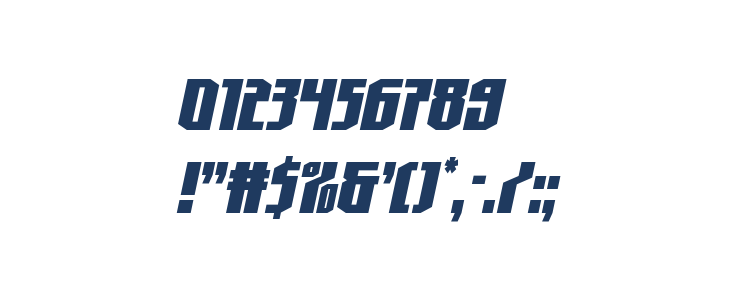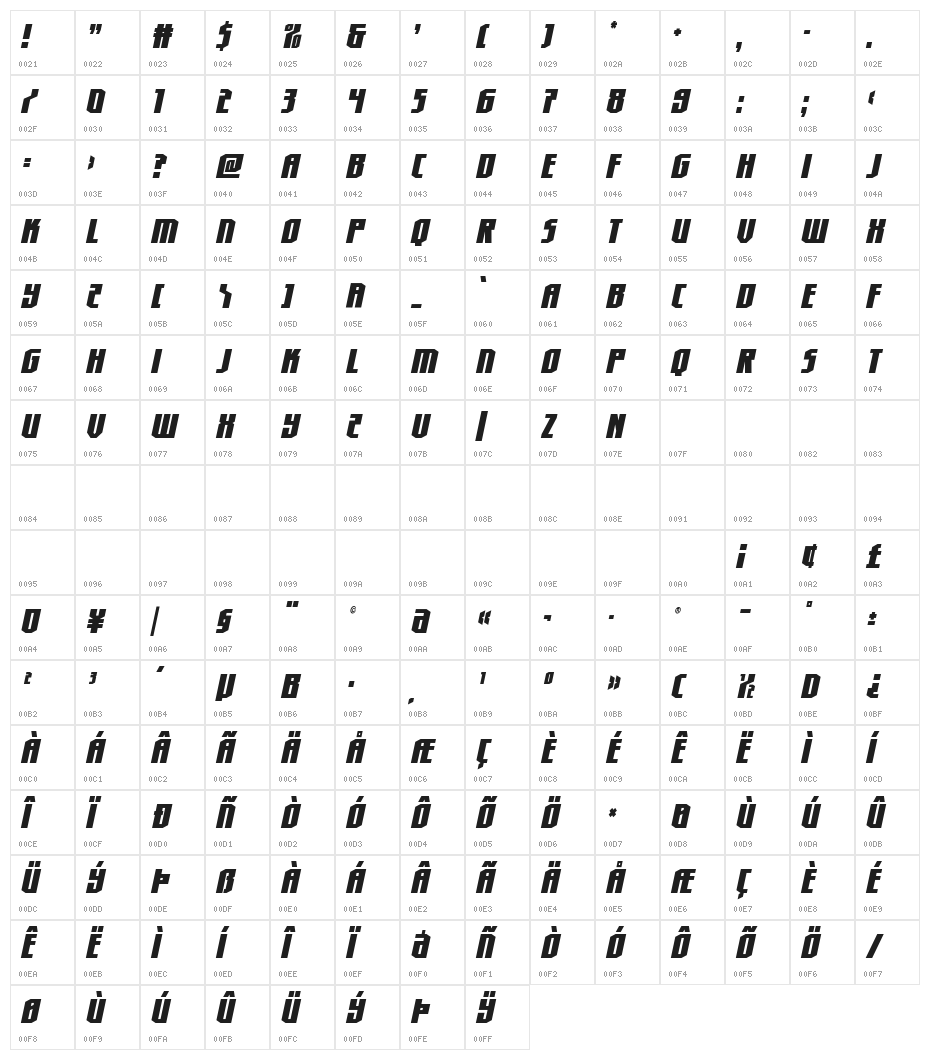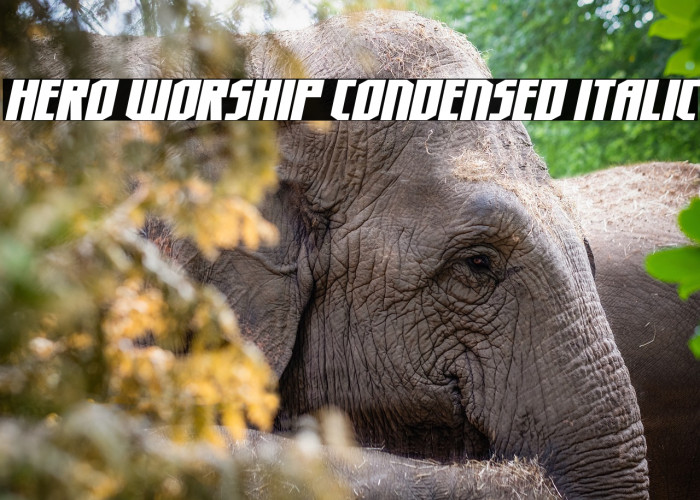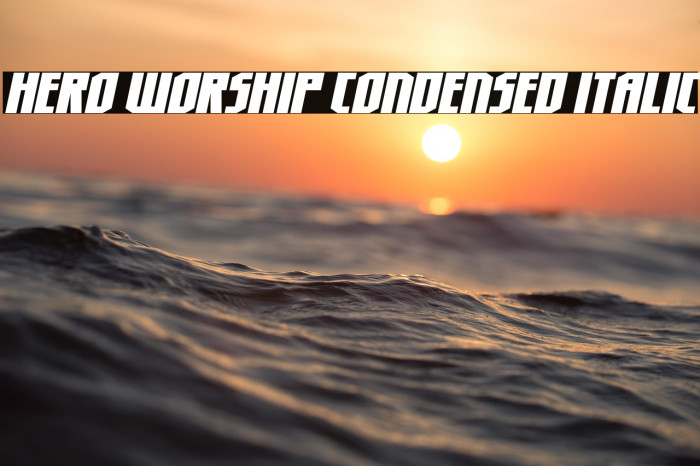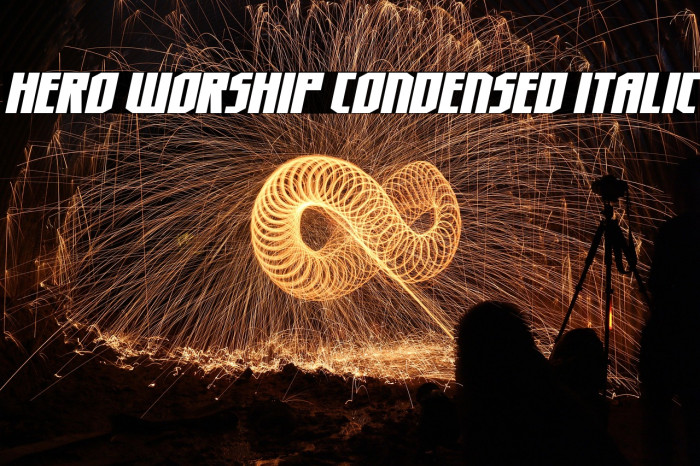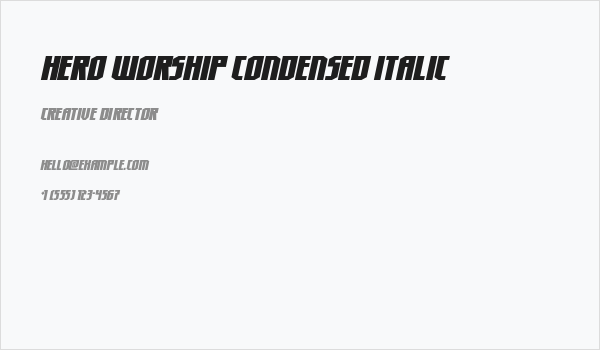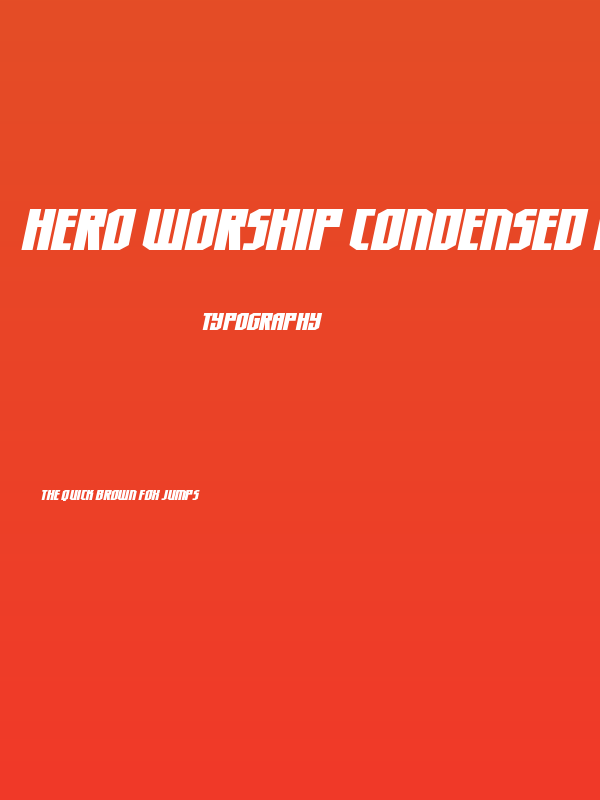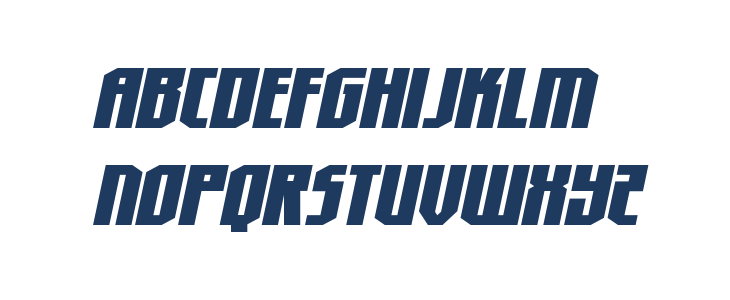
Hero Worship Condensed Italic Font
Hero Worship Condensed Italic Description
This font features a bold and dynamic design with a condensed and italicized style. The characters are sharply angled, giving them a sense of movement and energy. The uppercase letters are particularly striking, with strong geometric shapes and a consistent slant that enhances their boldness. The numerals and special characters maintain this cohesive style, ensuring a uniform appearance across all text. The overall look is modern and assertive, making it ideal for impactful headlines and attention-grabbing designs.
| Proposed Projects | Ideal for sports branding, dynamic posters, and modern advertising campaigns. |